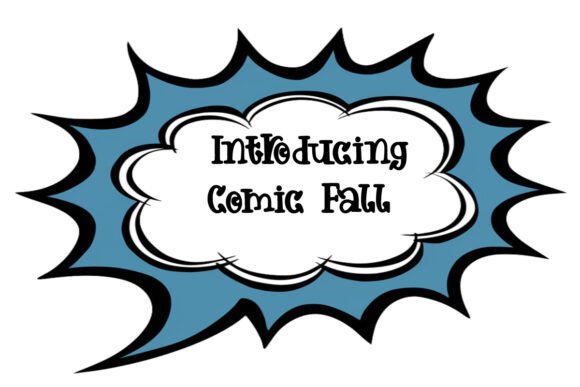
Introducing Comic Fall Display Font: Elevate Your Designs with a Touch of Quirkiness
Are you tired of using the same old fonts for your designs? Do you want to add a touch of personality and whimsy to your advertising creatives, blog headings, logos, and branding materials? Look no further than Comic Fall Display Font! This versatile font is perfect for designers and crafters who want to make a statement and take their designs to the next level.
What is Comic Fall Display Font?
Comic Fall Display Font is a unique and eye-catching font that combines the playfulness of pop art with the professionalism of a business font. Its quirky and charming design makes it perfect for projects where you want to add a touch of personality and flair. Whether you’re designing a logo, brochure, or social media graphic, Comic Fall Display Font is sure to make your design stand out.
Key Features of Comic Fall Display Font
- Unique and Eye-catching Design: Comic Fall Display Font features a one-of-a-kind design that is sure to grab attention and make your designs pop.
- Quirky yet Professional: This font strikes the perfect balance between playfulness and professionalism, making it suitable for a wide range of projects.
- Versatile: Comic Fall Display Font can be used for a variety of design projects, including advertising creatives, blog headings, logos, and branding materials.
- Easily Readable: Despite its quirky design, Comic Fall Display Font is easily readable, making it perfect for body text and headings.
Benefits of Using Comic Fall Display Font
Using Comic Fall Display Font can bring numerous benefits to your designs, including:
- Increased Visibility: The unique design of Comic Fall Display Font makes it sure to grab attention and increase visibility.
- Improved Brand Identity: This font can help you establish a strong brand identity that sets you apart from the competition.
- Enhanced Creativity: Comic Fall Display Font can inspire creativity and add a touch of personality to your designs.
- Time-saving: With its easily readable design, Comic Fall Display Font can save you time and effort in designing and formatting your text.
Who Can Benefit from Comic Fall Display Font?
Comic Fall Display Font is perfect for a wide range of designers and crafters, including:
- Graphic Designers: Graphic designers can use Comic Fall Display Font to create eye-catching logos, brochures, and other marketing materials.
- Digital Artists: Digital artists can use this font to add a touch of personality and whimsy to their digital art.
- Crafters: Crafters can use Comic Fall Display Font to create unique and personalized crafts, such as handmade cards and gift tags.
- Small Business Owners: Small business owners can use this font to create professional and eye-catching marketing materials.
Comic Fall Display Font is a versatile and eye-catching font that can elevate your designs and take them to the next level. Its unique design, quirky yet professional style, and easily readable format make it perfect for a wide range of projects. Whether you’re a graphic designer, digital artist, crafter, or small business owner, Comic Fall Display Font is sure to inspire creativity and add a touch of personality to your designs. So why wait? Download Comic Fall Display Font today and make a chic statement that resonates!